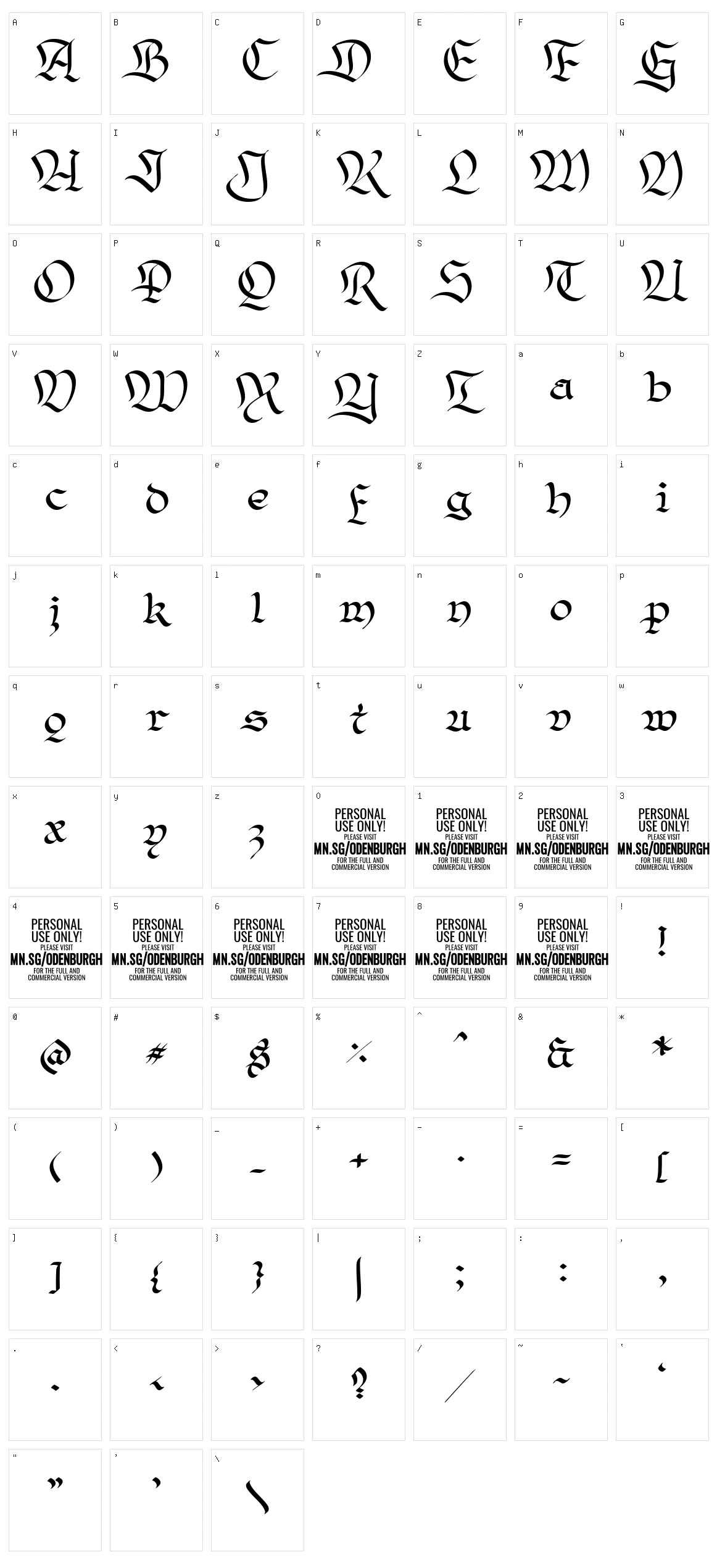
Odenburgh
Odenburgh is a Medieval-style calligraphy typeface.
Hand-drawn by Måns Grebäck during 2018-2020, this high-quality lettering is inspired by historical Gaelic, British and Irish handwriting.
It comes as a regular, clean style as well as the additional Odenburgh Deco style.
The typeface is perfect for calligraphic headlines, products and logotypes in Middle Ages projects.
The font supports all European, Latin-based languages.
In addition to that, it contains numbers and all punctuation and symbols you'll ever need.